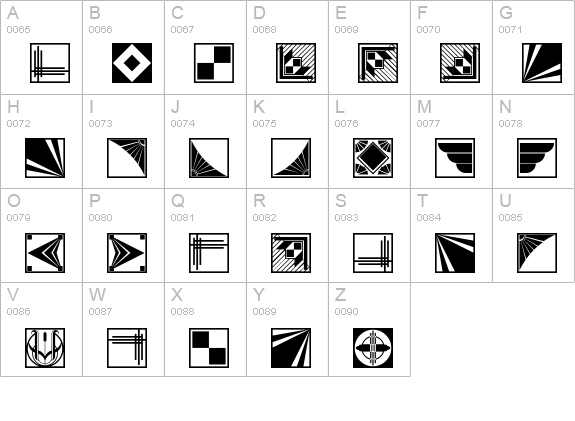
DecoBorders Font Details
DecoBorders font is a stunning display typeface that effortlessly combines elegance and sophistication with a touch of vintage charm. Its intricate design features delicate lines and ornate borders that add a luxurious feel to any project. Perfect for creating eye-catching headlines, invitations, or branding materials, DecoBorders font is sure to make a lasting impression. The best part is that DecoBorders font is available for free download at FontsMarket.com. Whether you're a designer looking to add a touch of glamour to your work or a creative individual seeking a unique font for personal projects, DecoBorders font is the perfect choice. Download it today and elevate your designs with this exquisite typeface.